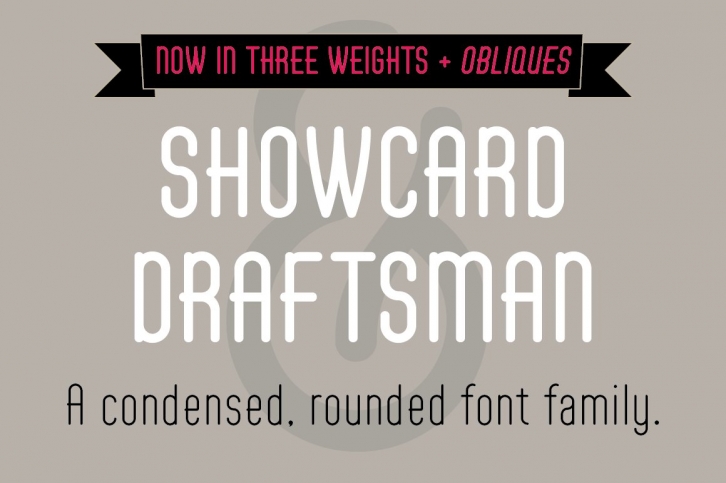
Showcard Draftsman is a monoline, rounded geometric font. Inspired by lettering found in an old showcard and ticket writing book, this font demonstrates forms in the routed style once popular in architecture and engineering. The three weights make Showcard Draftsman a flexible choice for any use where a distinctive and characterful condensed font is needed.
Showcard Draftsman includes a range of OpenType features.
A complete character set has been designed with multilingual support for the following languages: Albanian, Basque, Cornish, Croatian, Czech, Danish, Dutch, English, Esperanto, Estonian, Faroese, Finnish, French, Gaelic, Galician, German, Greek Transliterated, Hawaiian, Hungarian, Icelandic, Indonesian, Irish, Italian, Latvian, Lithuanian, Maltese, Norwegian Bokmål, Norwegian Nynorsk, Polish, Portugese, Romanian, Slovak, Slovenian, Spanish, Swedish, Turkish, Welsh.